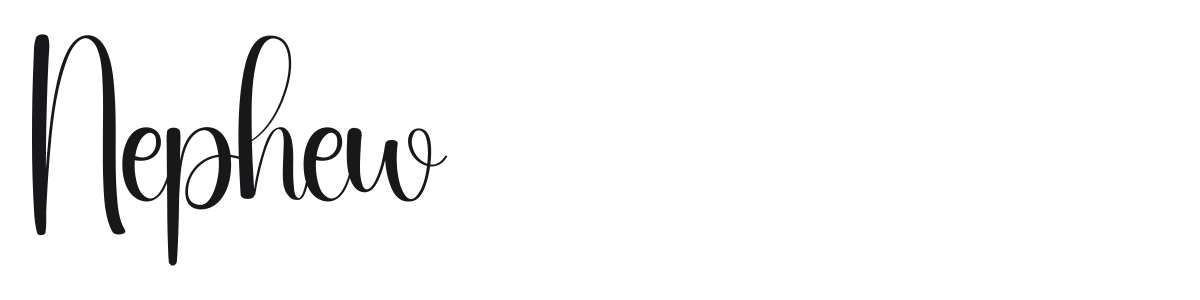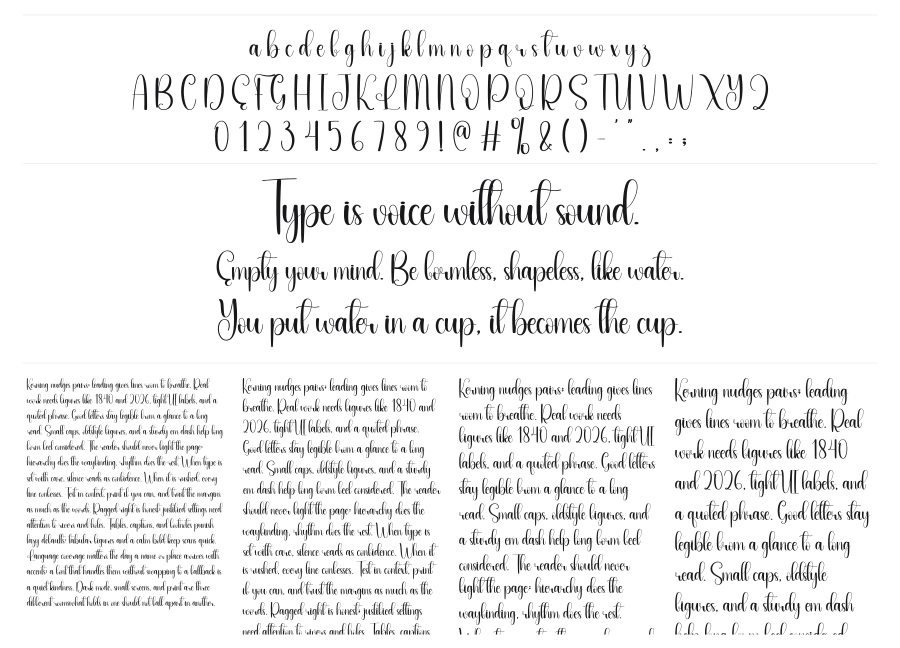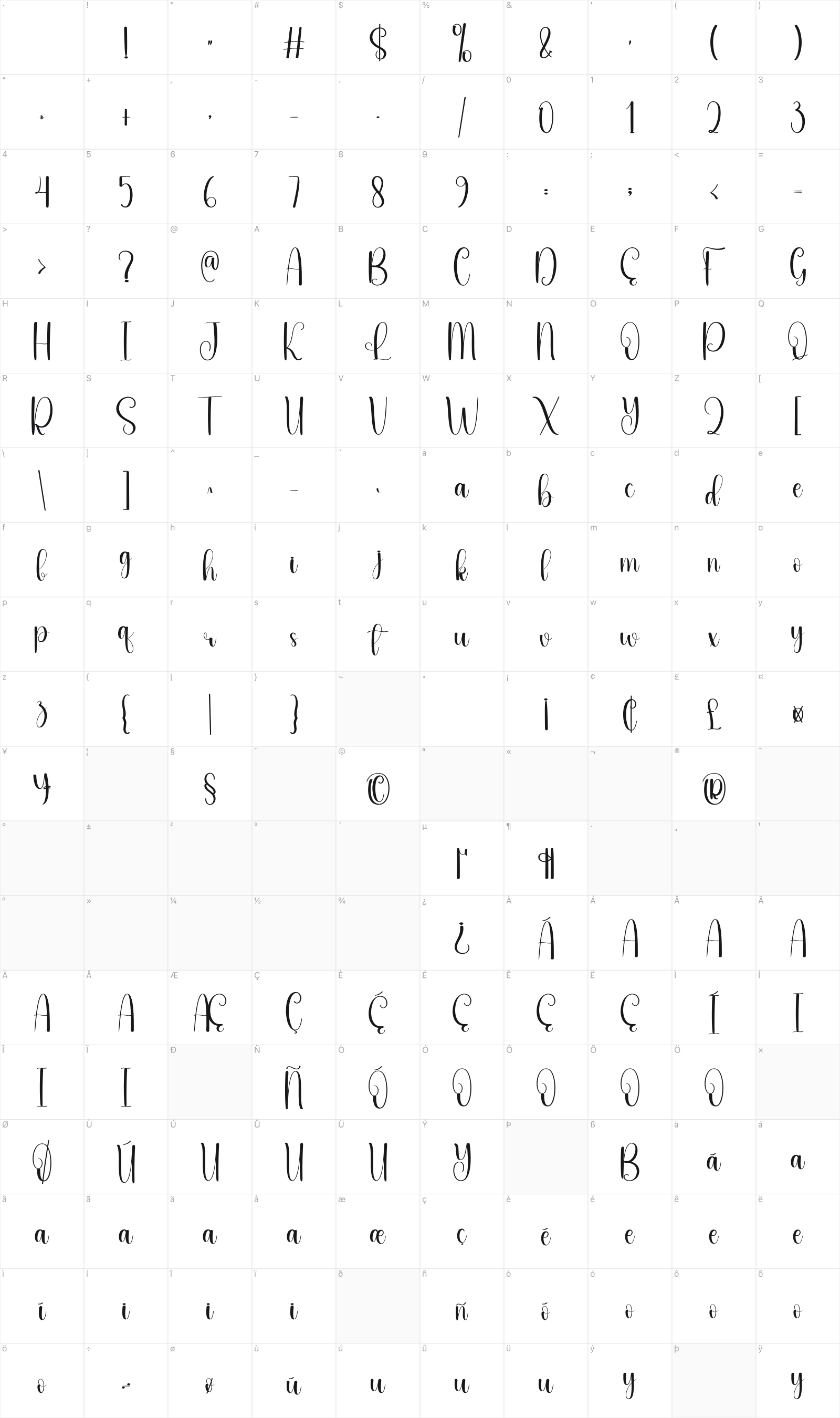
Nephew
Nephew is a bouncy calligraphic script with deep copperplate roots and a warm, friendly energy. High stroke contrast between thick downstrokes and delicate hairlines gives it elegance, while the loose, dancing baseline keeps it from feeling stiff. It suits wedding stationery, greeting cards, and branding where charm is the point.